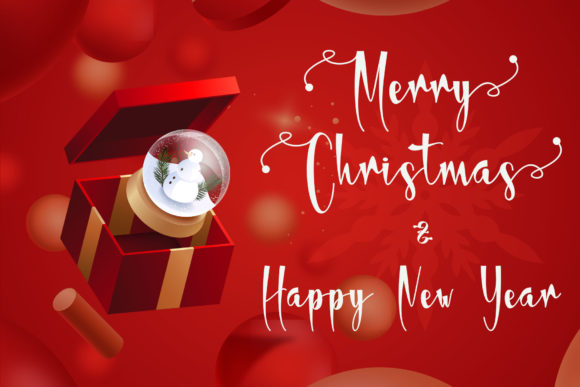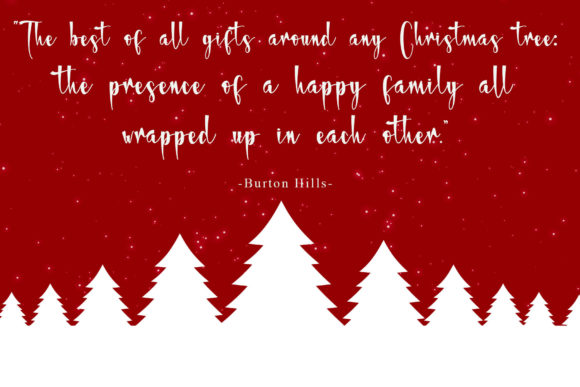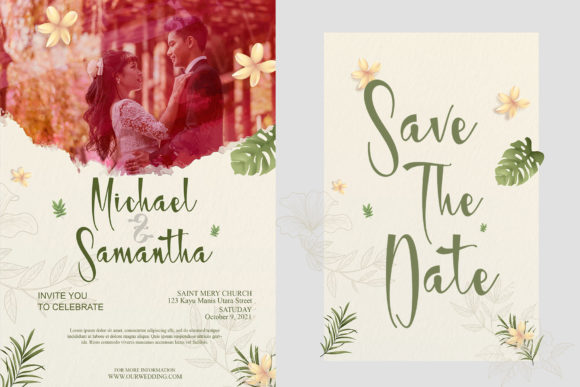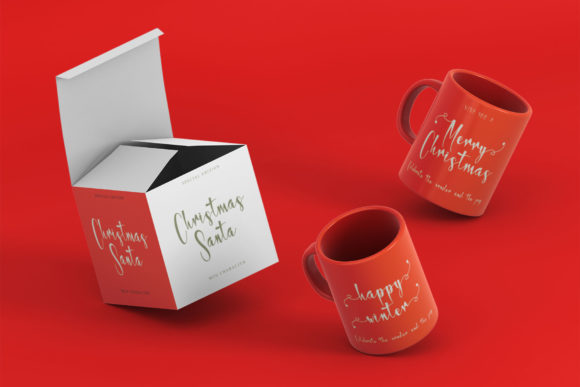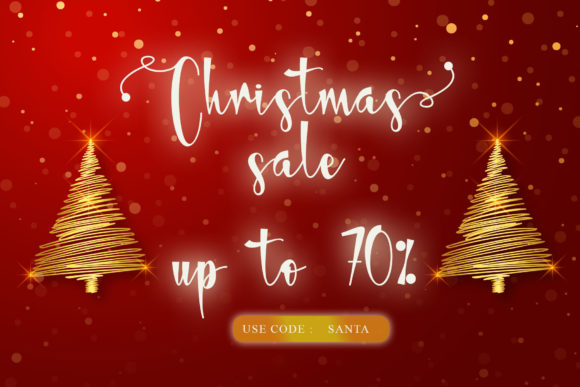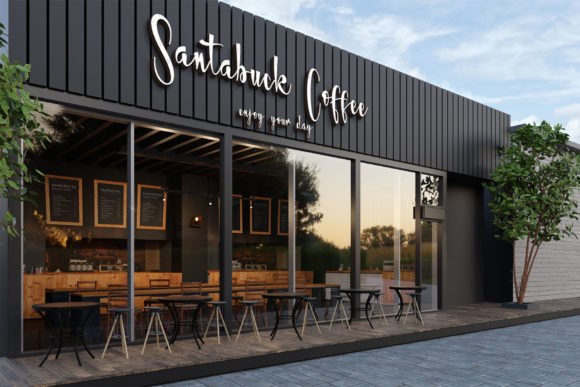
The Magic of Christmas Wind Font: A Designer’s Delight
It’s that time of the year again – Christmas is just around the corner, and as designers, we’re on the lookout for that perfect font to make our holiday projects shine. I still remember the year I was working on a Christmas-themed invitation for a client, and I just couldn’t find the right font to capture the festive spirit. The client wanted something elegant, yet playful; something that would make their guests feel like they’re unwrapping a gift. That’s when I stumbled upon Christmas Wind Font, and it instantly became my go-to for all things holiday cheer.
An Honest Review of Christmas Wind Font
So, what makes Christmas Wind Font so special? Let’s dive into the good stuff and, of course, a few quirks I’ve noticed.
- ✨ Elegant and beautiful lines that scream festive fun
- ✅ Perfect for invitations, wedding invitations, greeting cards, and branding
- 🎉 Attractive and eye-catching, making any project stand out
While Christmas Wind Font is a stunning addition to any design project, there are a few things to keep in mind:
- ⚠️ Some users might find the font a bit limited in terms of variation, but this can also be seen as part of its charm.
- 🤔 It might not be the best fit for super bold or large-scale projects, as it shines brightest in elegant, refined settings.
The Story Behind Christmas Wind Font
Legend has it that Christmas Wind Font was created by a designer who wanted to capture the essence of a snowy Christmas Eve – the elegant lines, the quiet peacefulness, and the joyful anticipation. The designer, inspired by traditional holiday decorations and the magic of the season, poured their heart into crafting a font that would bring warmth and festivity to any project. And so, Christmas Wind Font was born – a beautiful blend of elegance and holiday cheer.
Q: Does Christmas Wind Font support OpenType features?
A: Yes, Christmas Wind Font comes with a range of OpenType features, including glyphs and stylistic alternates, to help you customize your text.